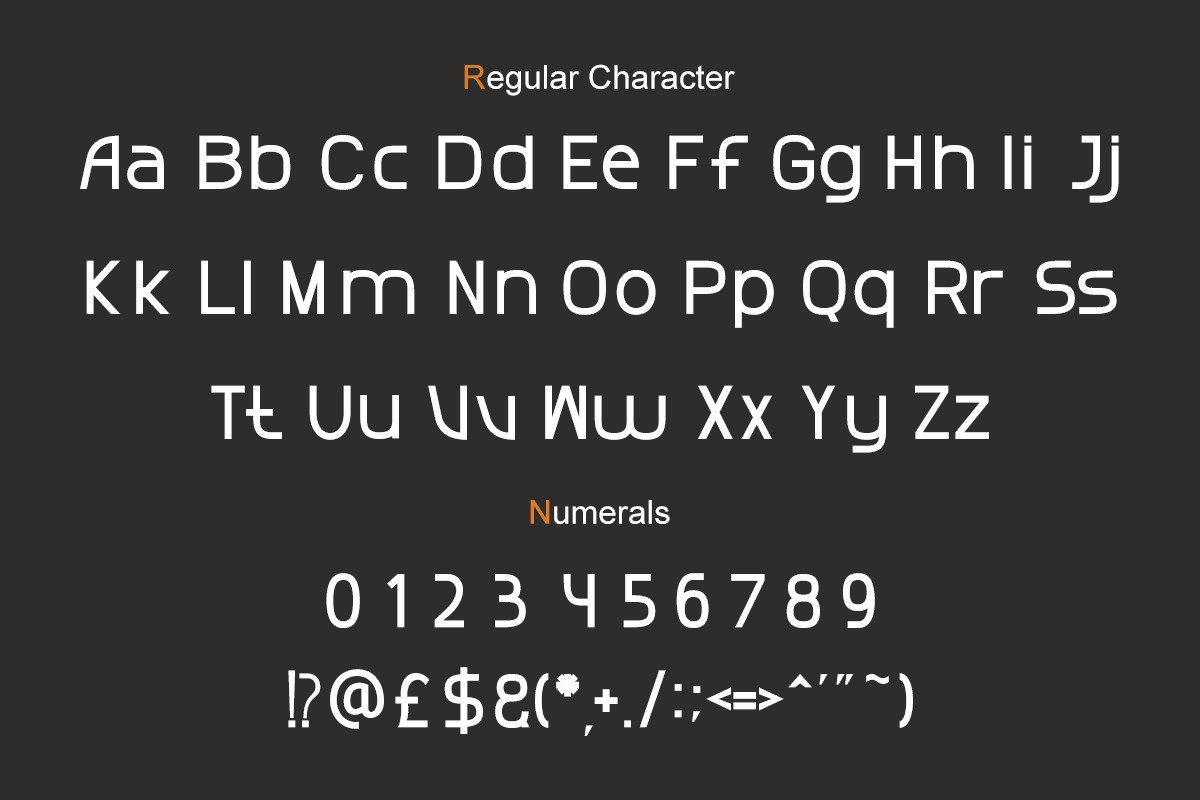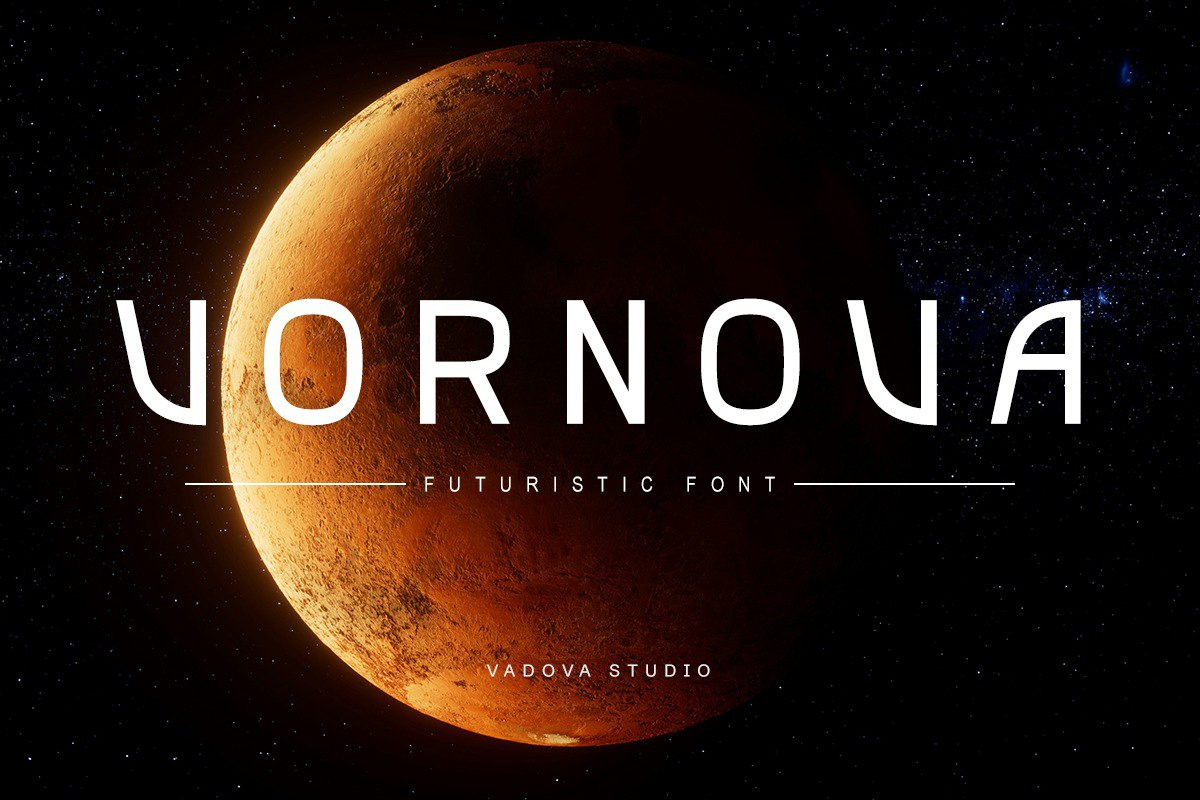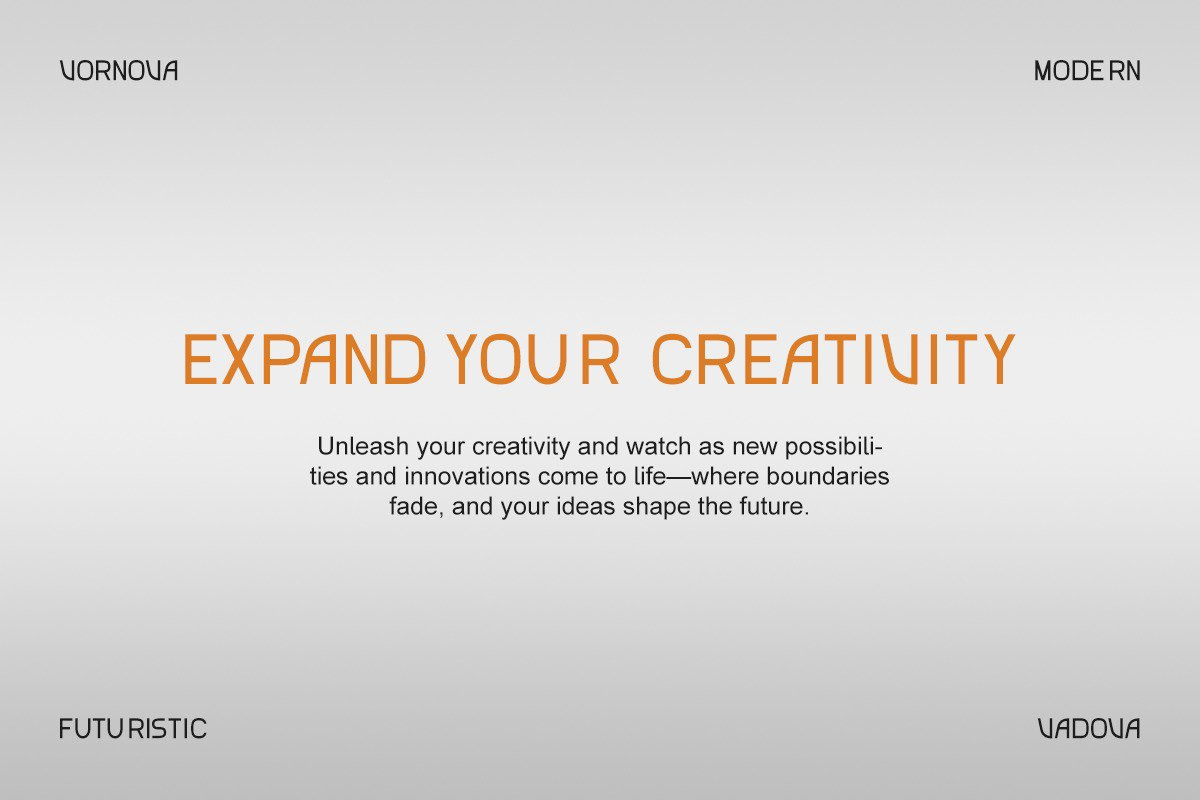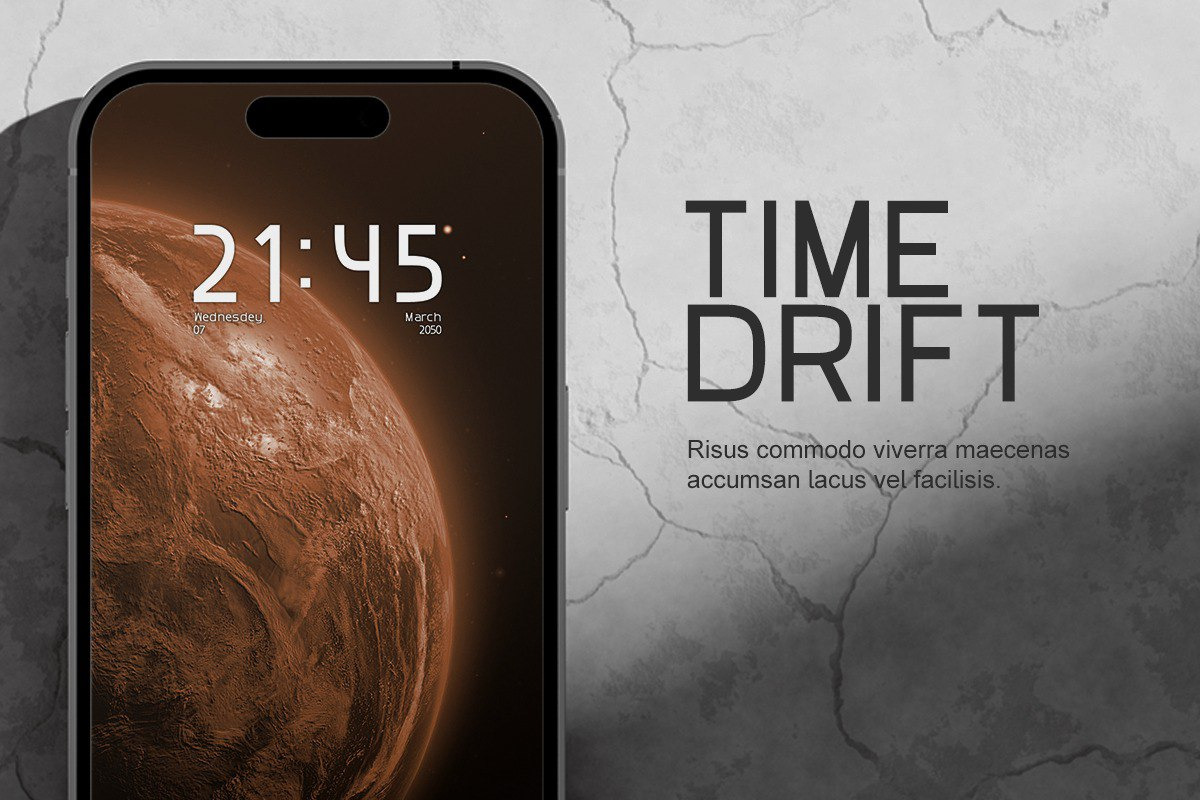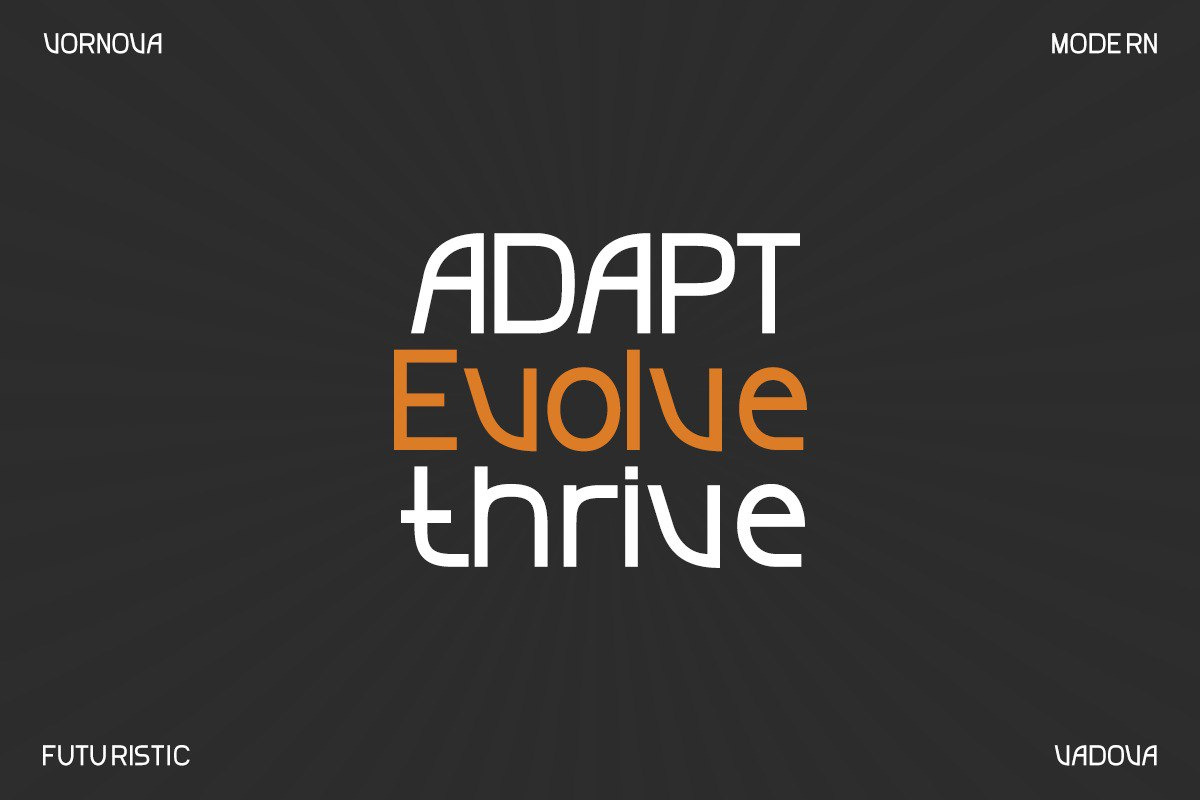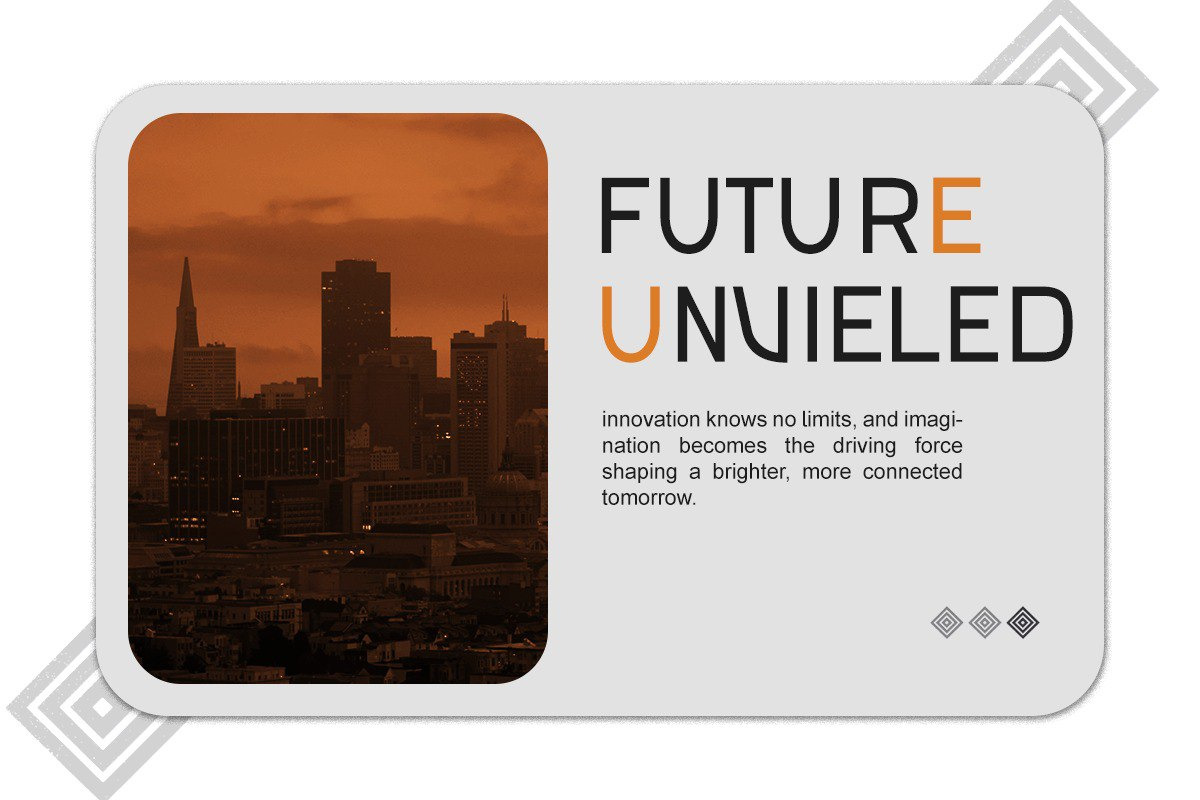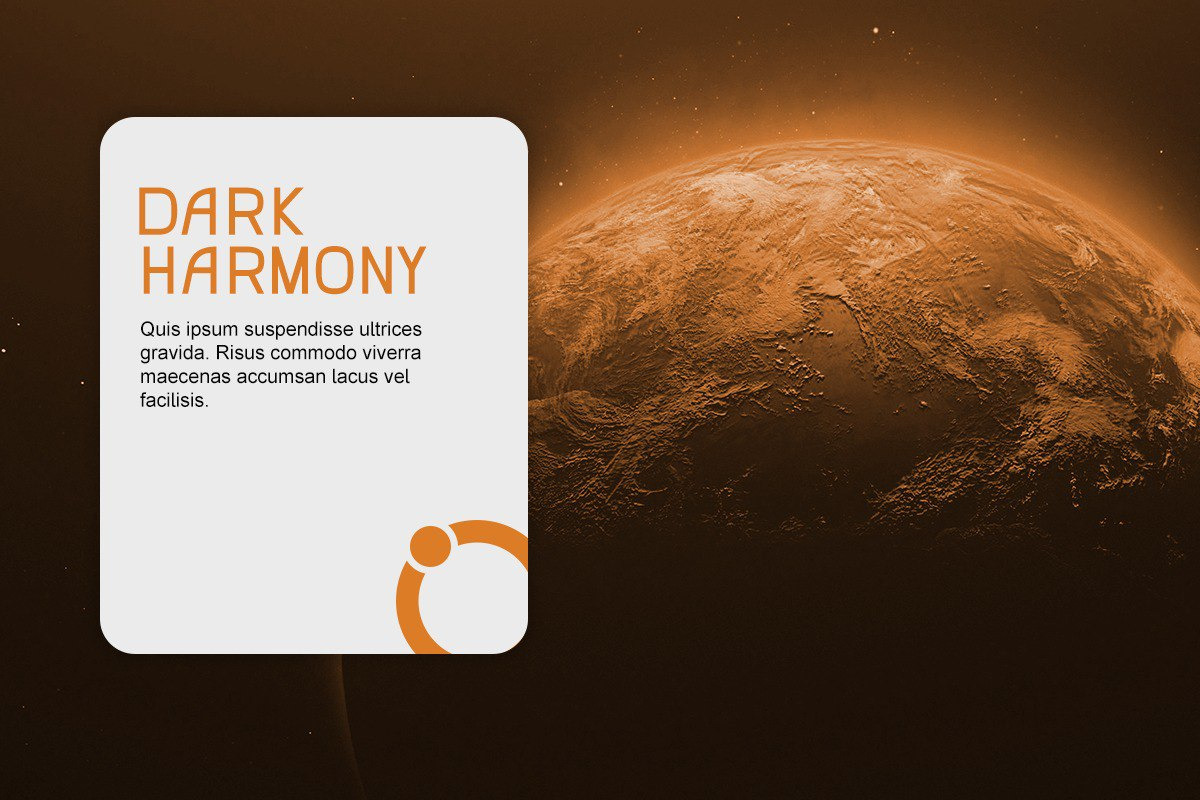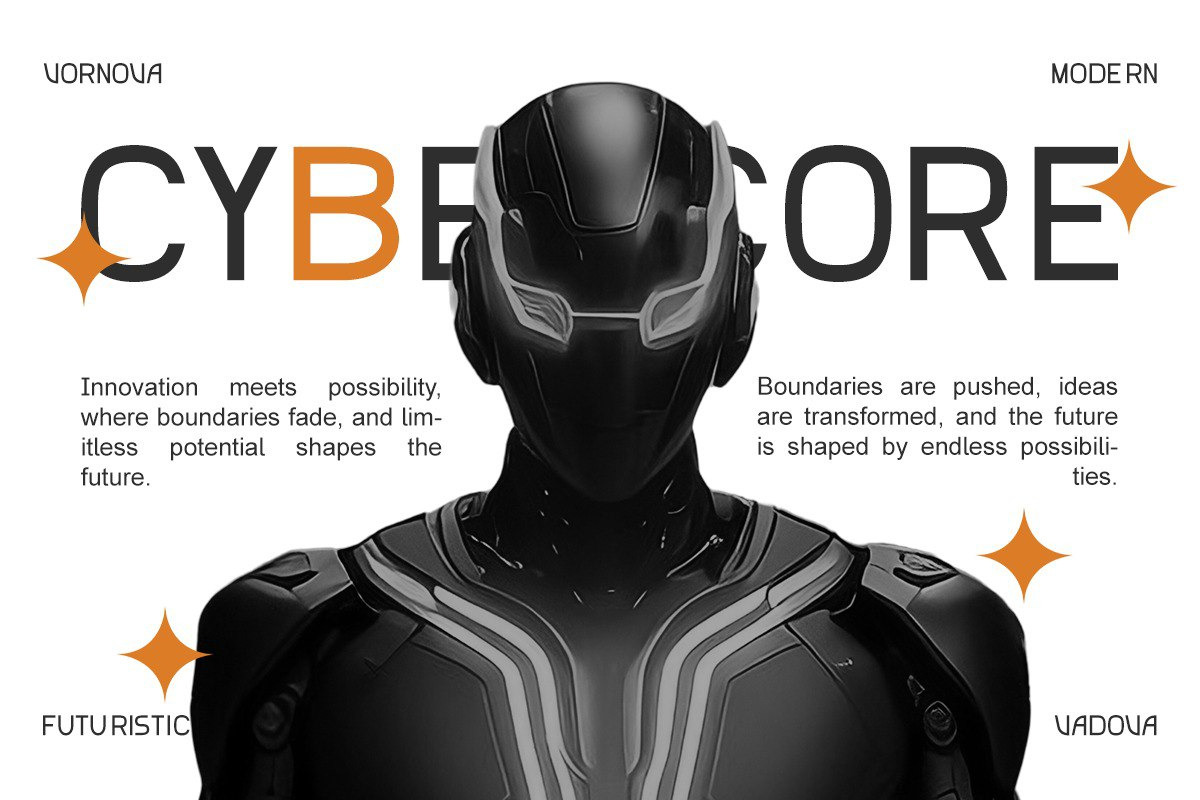
Vornova Futuristic Font
Vornova is a sleek and forward-thinking futuristic font designed for minimalism, clarity, and cutting-edge aesthetics. Perfectly tailored for sci-fi projects, tech branding, app interfaces, and modern presentations, this sans serif typeface brings a clean yet powerful voice to every design. Inspired by space, digital landscapes, and technological evolution, Vornova blends elegance with a visionary edge. Whether for corporate innovation campaigns or artistic sci-fi creations, it ensures a sharp, professional look that feels both modern and timeless.
Main Features
- Uppercase & Lowercase characters
- Numeral & Punctuations
Vornova Futuristic Font Suitable for: space design, sci-fi posters, innovation branding, app UI/UX, futuristic ads, digital content, galaxy themes, tech logos, AI visuals, product mockups, cyber visuals, minimalist titles, professional decks, modern websites, cosmic themes, startup promos, digital brochures, presentation slides, creative design, media kits